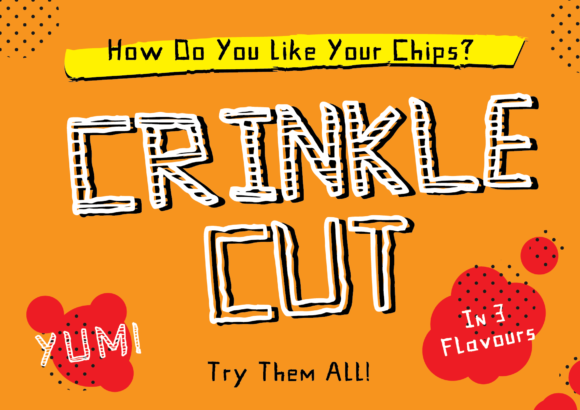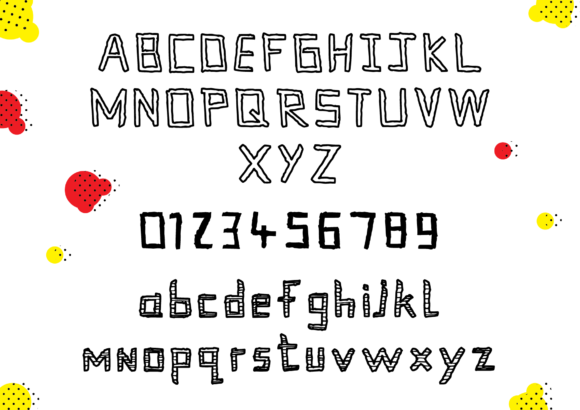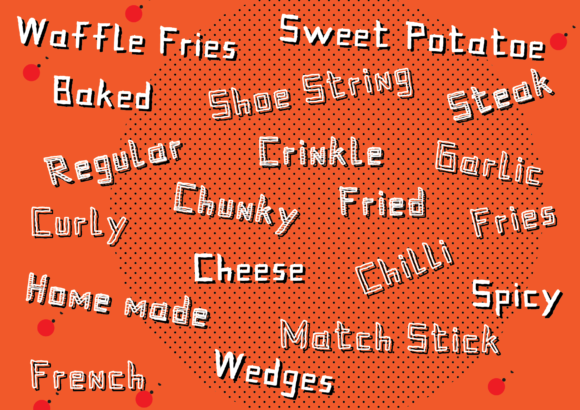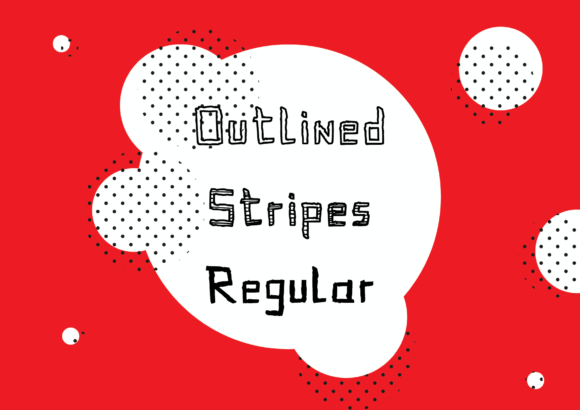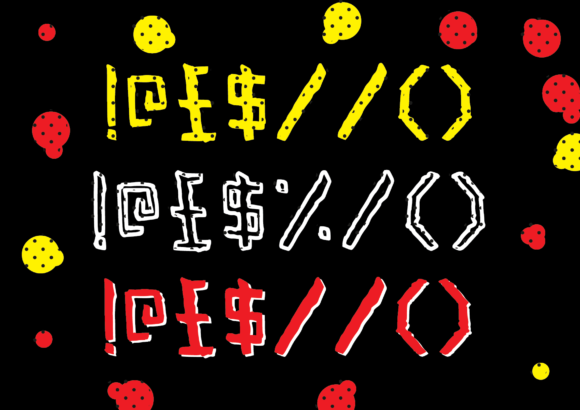
Unleash Your Creativity with the Crinkle Cut Font
Have you ever stared at a blank canvas, desperate for inspiration to strike? We’ve all been there – the creative block, the blank page, the endless scroll through social media trying to find that spark. But what if I told you there’s a font that can turn that blank page into a work of art? Enter the Crinkle Cut Font, a display font that’s about to take your design projects to the next level.
This unique font is designed to add a touch of whimsy and playfulness to any design project. With its crinkled, wavy lines, the Crinkle Cut Font is the perfect addition to any creative endeavor. Whether you’re designing a logo, a brochure, or a social media campaign, this font is sure to make your design stand out from the crowd.
Crinkle Cut Font Key Features
- Unique Characteristics: Distinctive crinkle-cut effect, ideal for creating a playful and whimsical atmosphere
- Kerning and Ligatures: Includes advanced kerning and ligature tables for precise letter spacing and improved readability
Crinkle Cut Font Review
As a designer, I was excited to dive into the Crinkle Cut Font and see what it had to offer. Here’s my honest review:
- The unique, crinkle-cut design is definitely eye-catching and adds a fun touch to any project.
- The font is highly customizable, with a range of options for color, size, and spacing.
- The Crinkle Cut Font is great for creating playful, whimsical designs, such as party invitations, social media graphics, and kids’ content.
- The font can be a bit overwhelming when used in large quantities, so it’s best to use it sparingly to avoid visual clutter.
- The Crinkle Cut Font may not be the best choice for formal or professional projects, as it can come across as too playful or childish.
- The font can be difficult to read in certain contexts, such as when used in small sizes or with low contrast colors.
Overall, I think the Crinkle Cut Font is a fun and creative option for designers looking to add a playful touch to their projects. While it has some limitations, it’s a great choice for the right type of project, and the high level of customization makes it a versatile tool in any designer’s toolkit.
Crinkle Cut Font is ideal for:
- Creating eye-catching titles and headings.
- Designing custom logos and icons.
- Adding visual interest to presentations and documents.